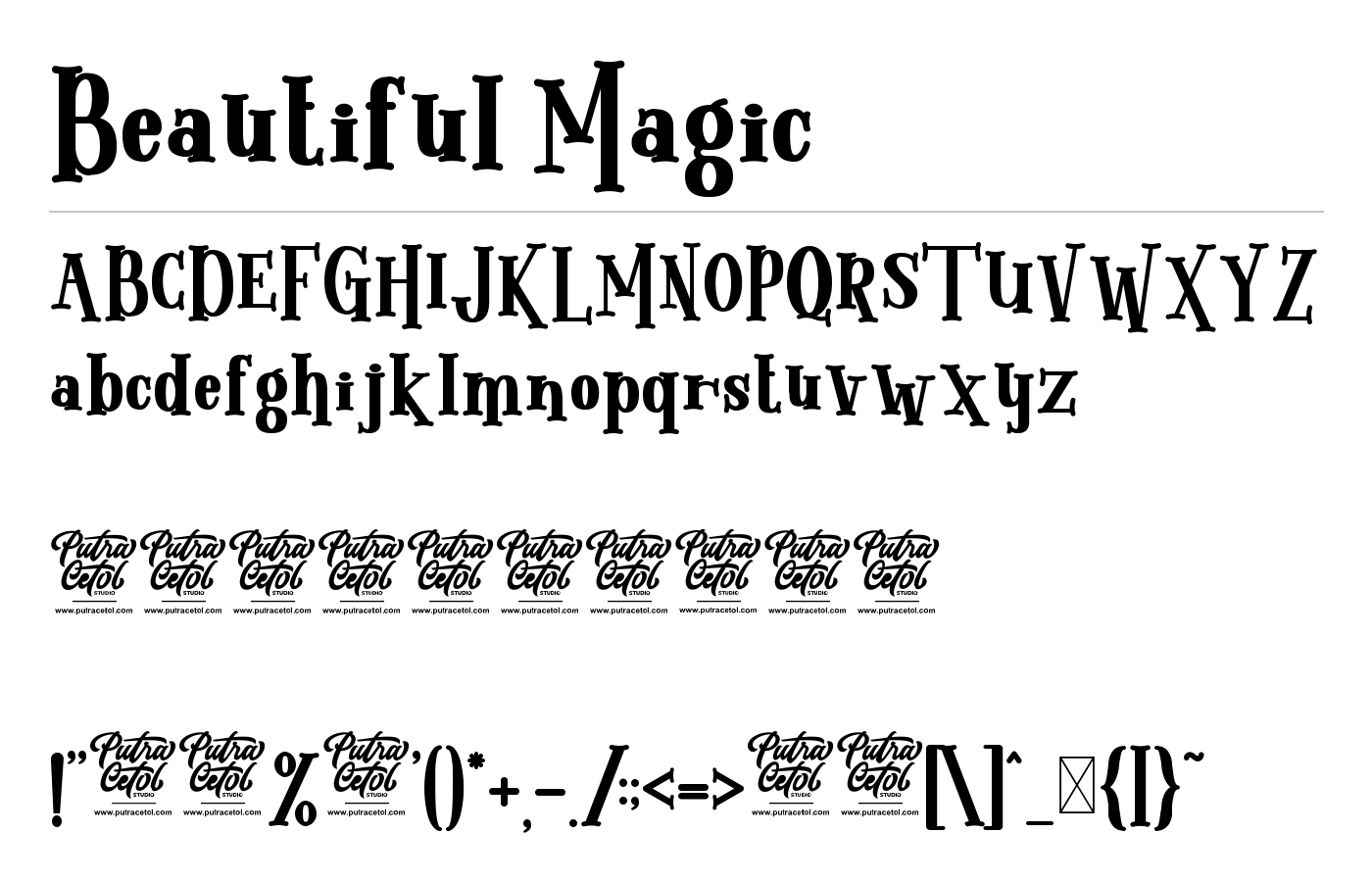
Beautiful Magic is a quirky serif font with a playful and slightly vintage feel, featuring uneven strokes and whimsical letterforms that feel hand-crafted yet bold. Its medium weight and normal width, combined with distinct serifs and unique character shapes, make it well suited for creative branding, eye-catching headlines, or fun editorial projects where personality and charm are key. This font adds a magical, artistic touch that works beautifully for fashion, packaging, or any design needing a spirited, storybook-inspired flair.
Beautiful Magic Font
About Beautiful Magic Font